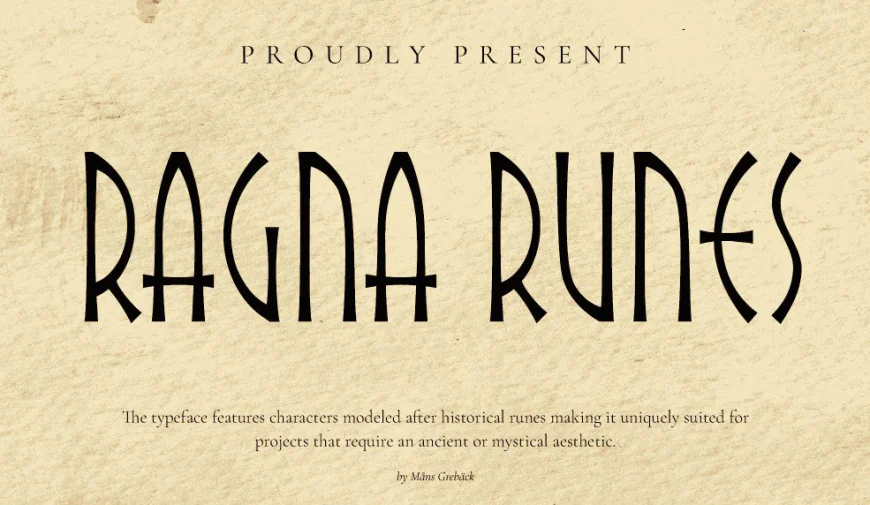
This typeface is designed with characters inspired by historical runes, making it perfect for projects that seek an ancient or mystical visual style.